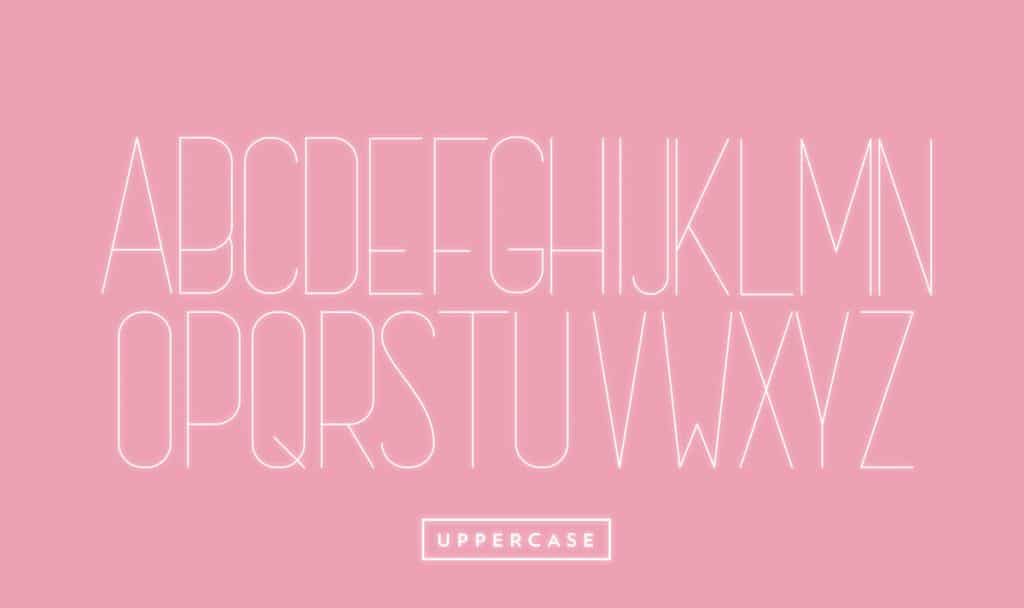
Free Font Friday: Arcadia
For this Free Font Friday we bring you the Arcadia typeface designed by Manh Nguyen.
Arcadia is a stylish, hairline display font that one could imagine being used for a magazine article title, on a record cover, or done up in neon in the front of a hipster cafe.
The font is a condensed and tall sans-serif with a lowercase version having embellishments that make it appear like a script typeface and the upper case version having some Art Deco visual flavor. Versatile and distinct, Arcadia is a great first effort by this talented designer.